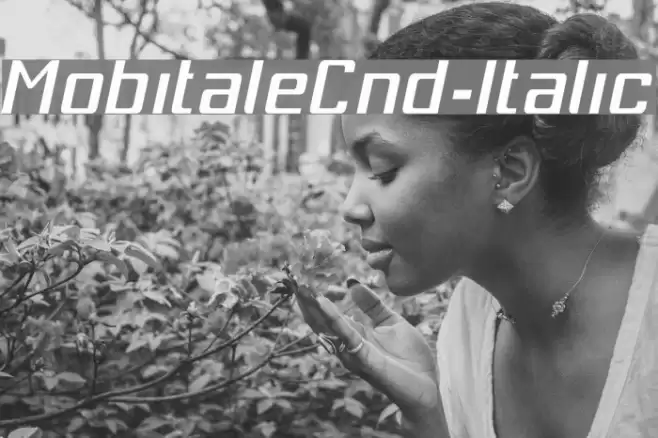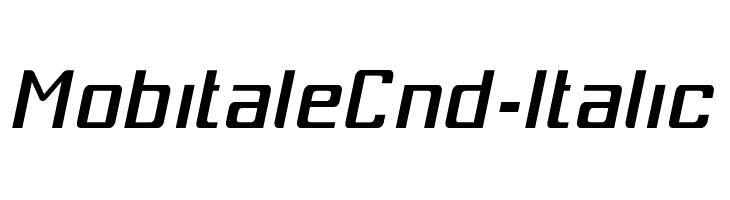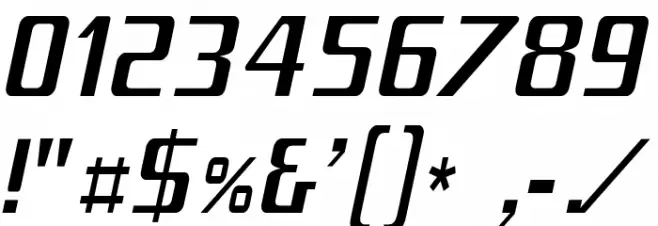
MobitaleCnd-Italic Font
MobitaleCnd-Italic Description
This font features a modern and sleek design with a condensed and italicized style. The characters are slightly slanted, giving a dynamic and forward-moving appearance. The strokes are consistent in weight, providing a uniform look across all characters. The uppercase and lowercase letters maintain a geometric structure, with sharp angles and clean lines. The numerals are clear and legible, matching the overall aesthetic of the alphabet. Special characters are well-integrated, maintaining the font's cohesive style.
A modern, condensed italic font with geometric structure and clean lines from Uncategorized fonts.